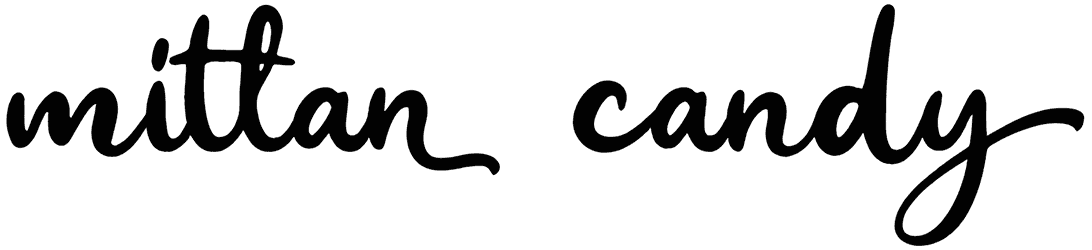
Mittan Candy Font
If you feel that there is a lack of innovation in your graphic content, then you must consider a lovely script font the such as the Mittan Candy, as a reliable source of inspiration. Aside from the lack of numbers, this invitation font provides you with a mixture of lowercase and uppercase letters.
This masterpiece can bring a sense of drama, softness, comfort, and vitality to your social media posts, billboards, applications, gift cards, and invitations.